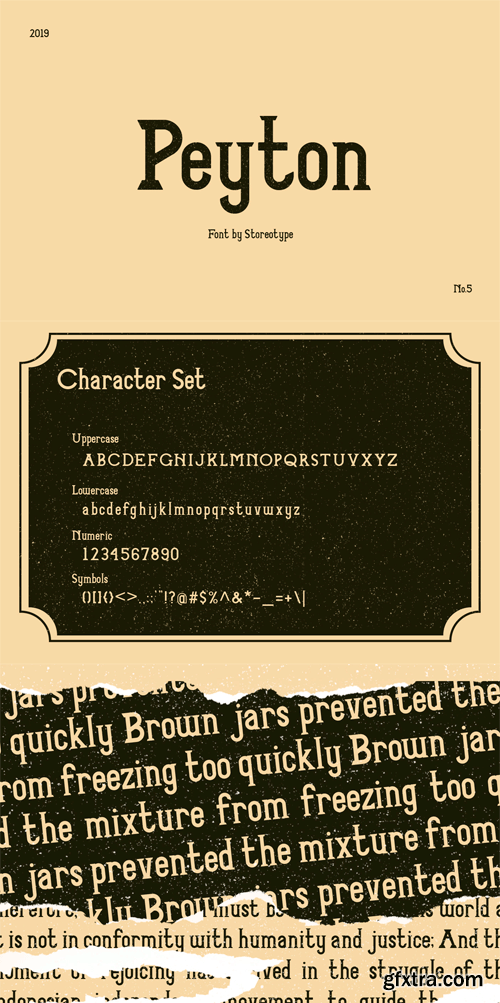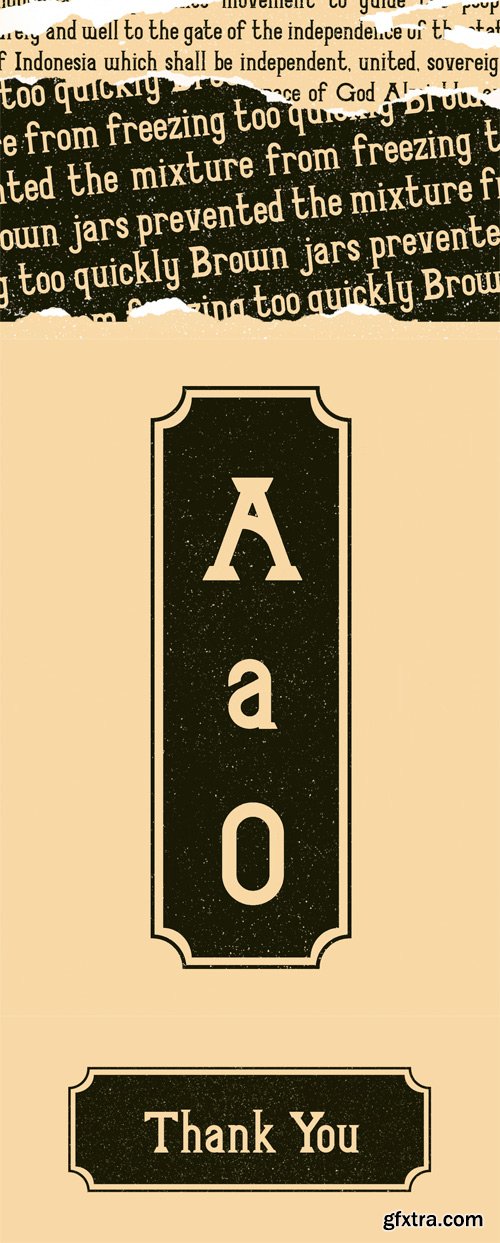
Peyton Font
Peyton is a vintage style font with its unique look. It contains uppercase and lowercase letters, numbers and symbols. This font looks great for retro designs, posters, logos and labels, vintage t-shirts and apparel.